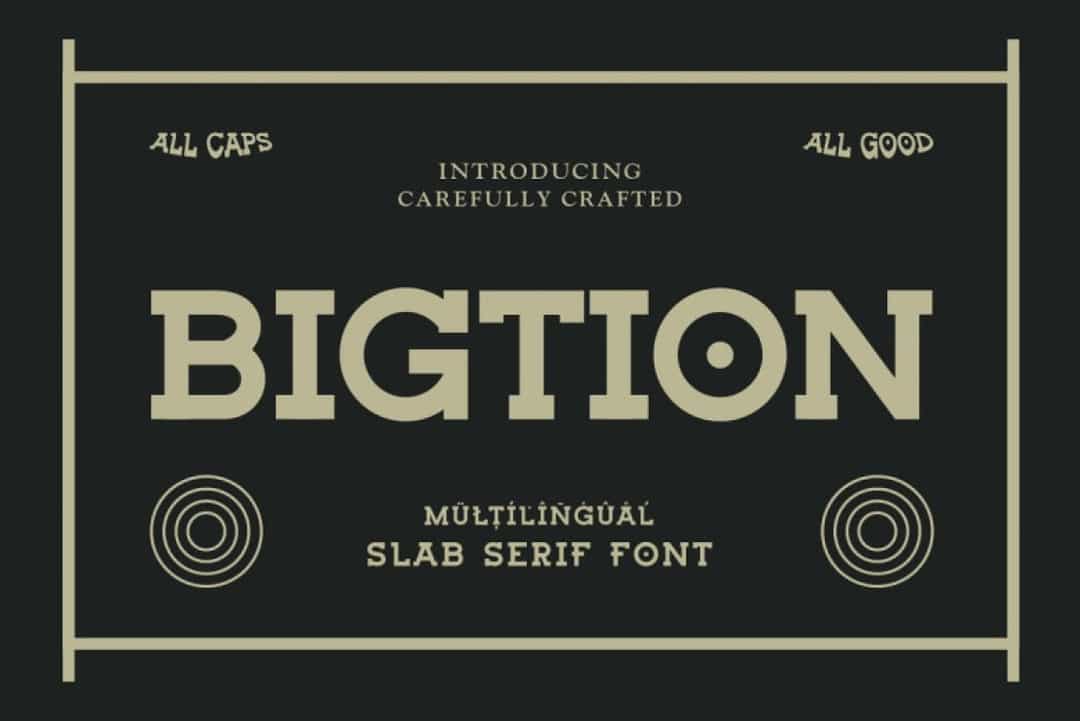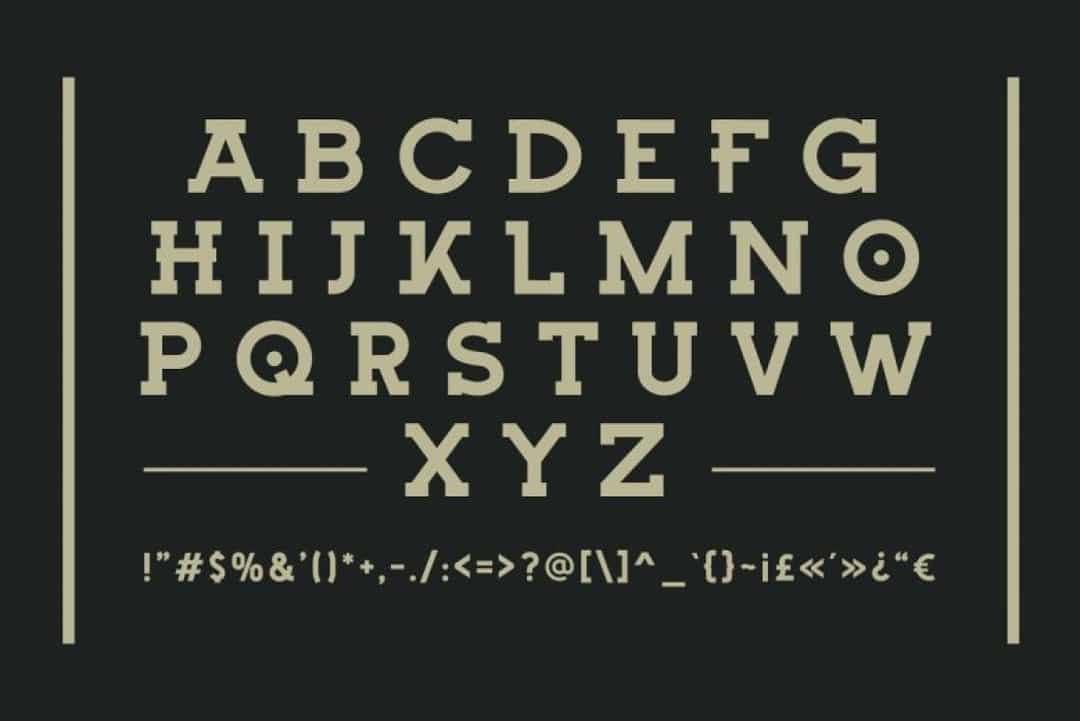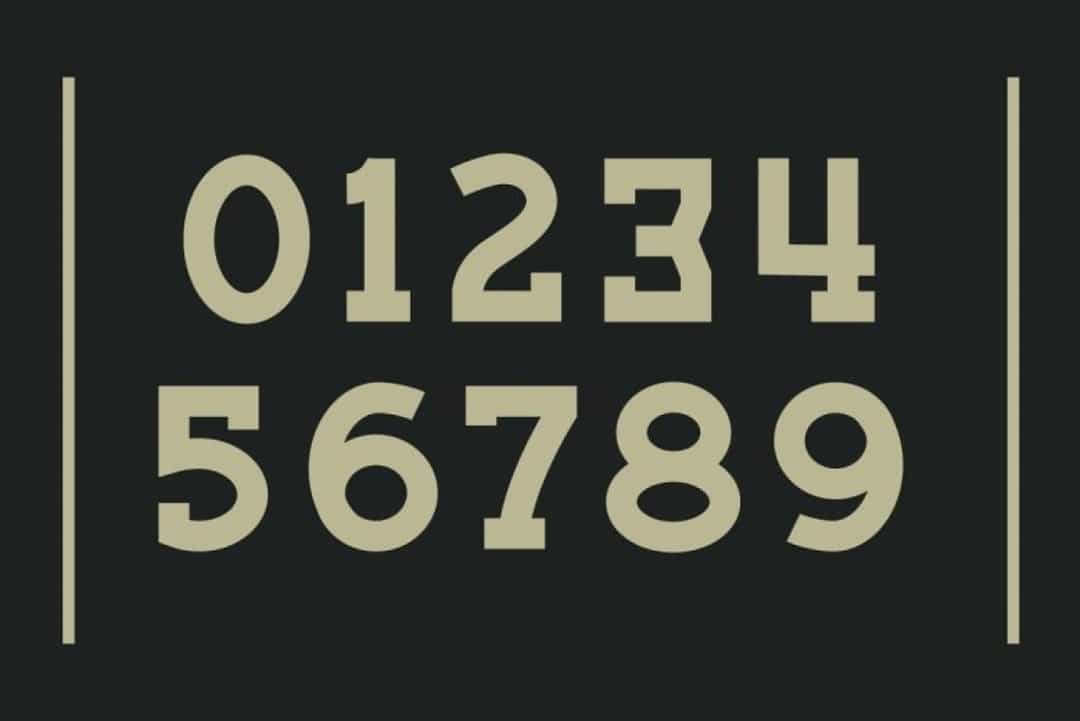
Bigtion is a bold slab-serif font with excellent legibility that can be used across a range of media such as packaging design logos posters or even in packaging design logos themselves. Multilingual support has also been built into this font family.